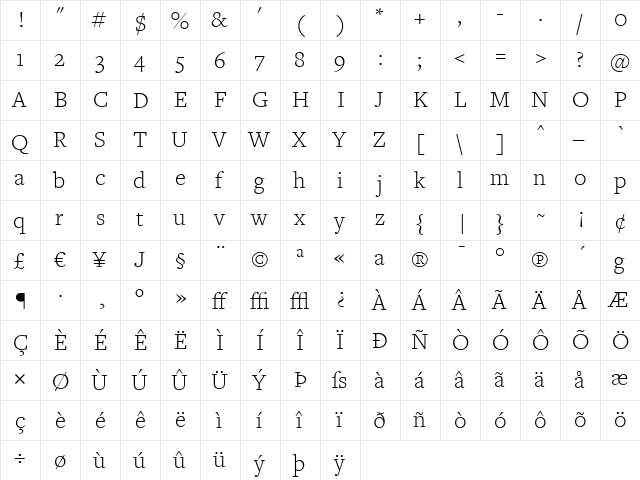
FreightText Light
| Foundry | Joshua Darden & Phil's Fonts, Inc |
| Designer | Joshua Darden |
Design Context for FreightText Typeface
FreightText offers clean, dependable letterforms without strong stylistic allegiance, making it a practical choice for designers who need flexibility. The delicate stroke weight brings airiness and refinement to layouts.